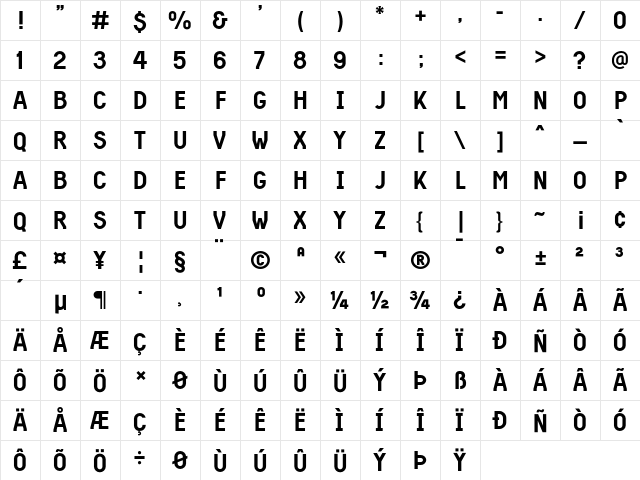
Harbinger Regular
| Designer | AC Fonts |
Design Context for Harbinger Typeface
Harbinger is a composed and adaptable typeface that performs quietly and consistently across a wide range of design contexts.